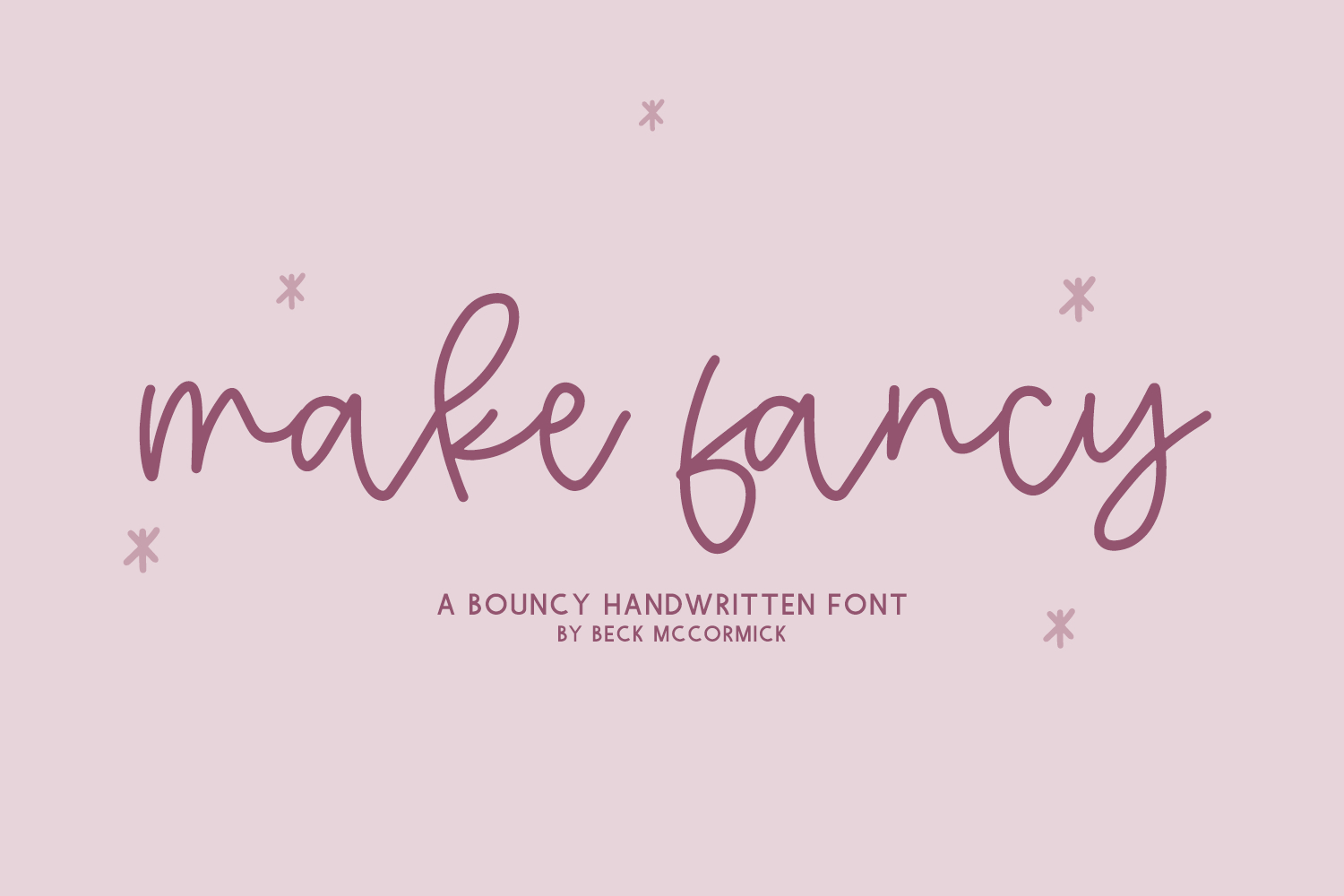
Introducing Make Fancy, a bouncy monoline script.
Make Fancy is best for:
- feminine, crafty projects with your Cricut or Silhouette machine, or your SVG design business
- farmhouse decor and crafts
- digital planners & apps like Goodnotes
- website design + website accents, blog design
- feminine graphic tee shirt design & other apparel
Make Fancy includes:
- 4 ligatures - ag, eg, ig, ug